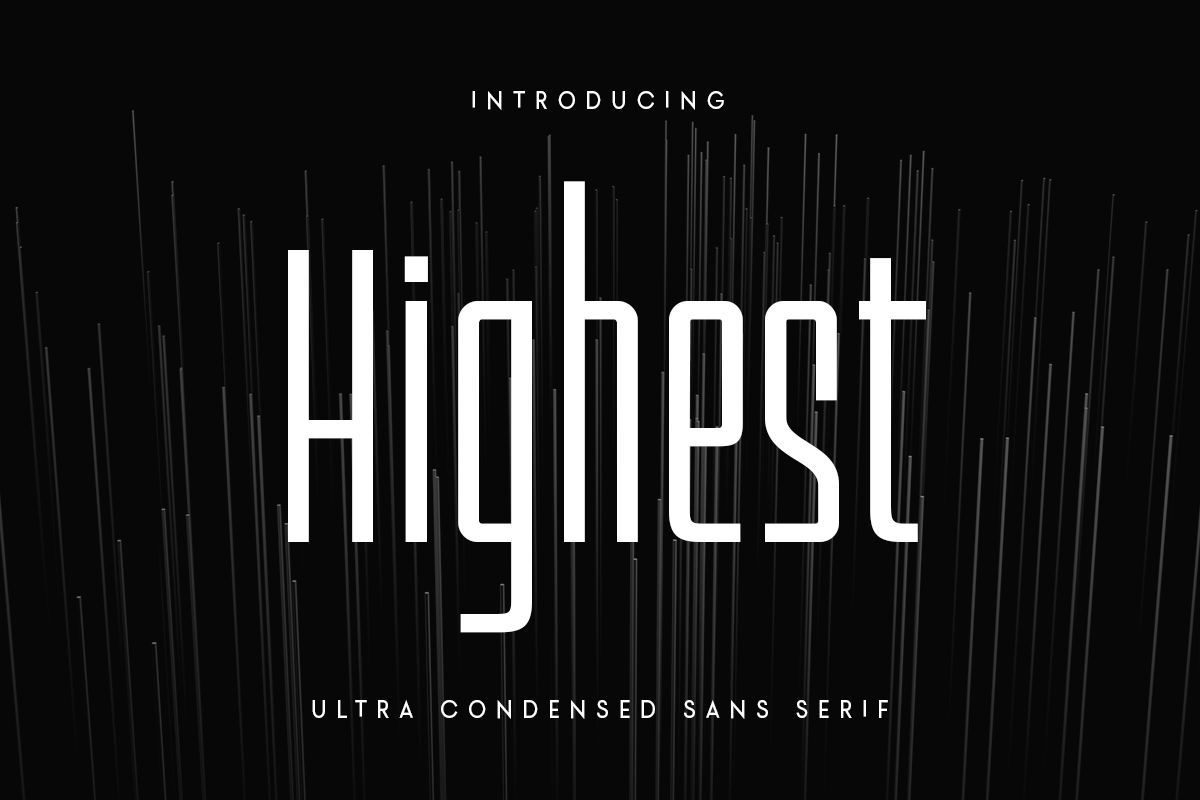
Highest
-Ultra Condensed Sans Serif
Highest
A New Ultra Condensed Sans Serif font are prepared special for heading, title, and typography needs. It's so perfect to add your style and headline overview. And specially for Headline font, we crafted for unique style and modern feels so enjoy to create any project that will show your main idea out.